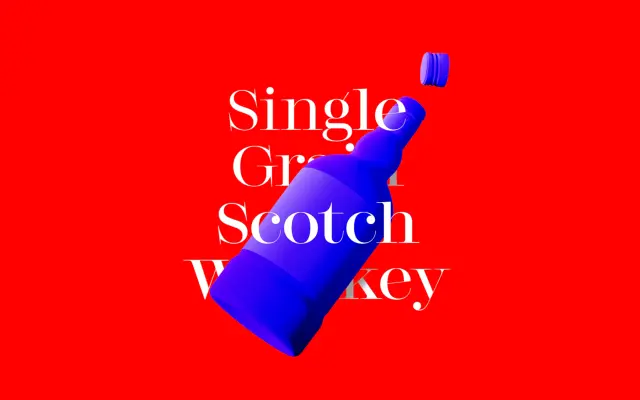
F37 Britain Scotch
The scotch roman within the F37 Britain collection, a high contrast serif with editorial weight across four cuts.
A scotch roman that joins the F37 Britain collection. Eight styles run across four weights from Regular to Bold with matching italics, giving it the range for editorial display, mastheads and book covers. Carries the historical British printing reference that the wider collection plays with, paired against the more neutral and humanist sans cuts.
F37 classify F37 Britain Scotch as a scotch roman within the F37 Britain collection. The style descends from nineteenth century British and Scottish foundries: high contrast, bracketed serifs, and a sturdy, editorial feel.